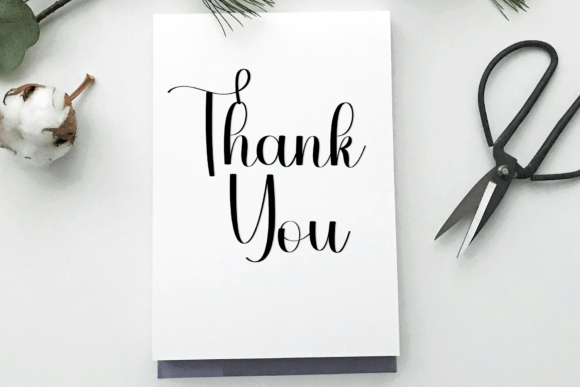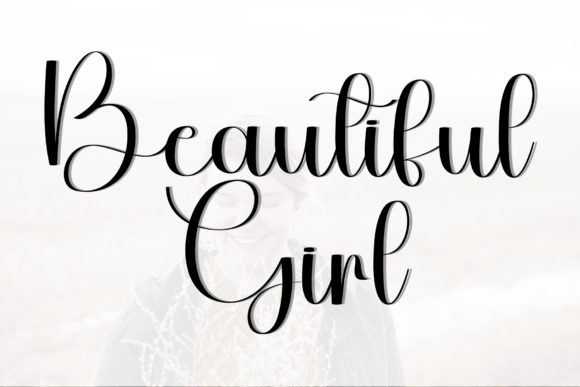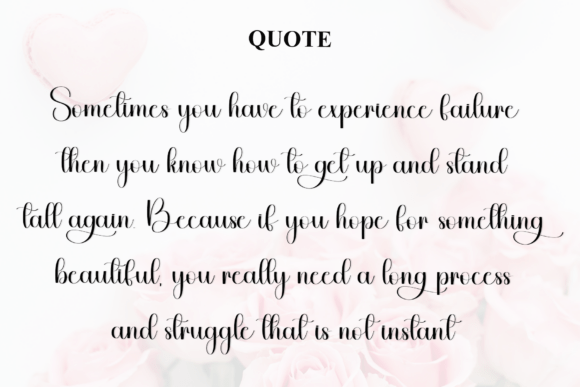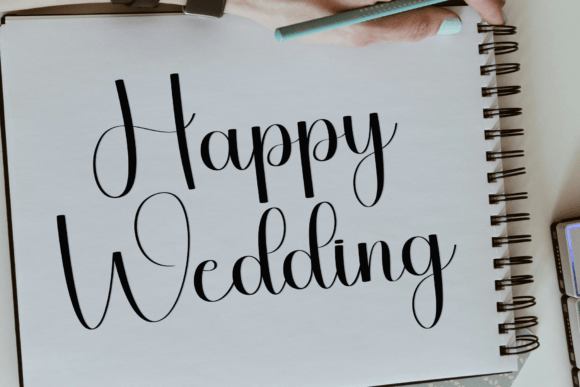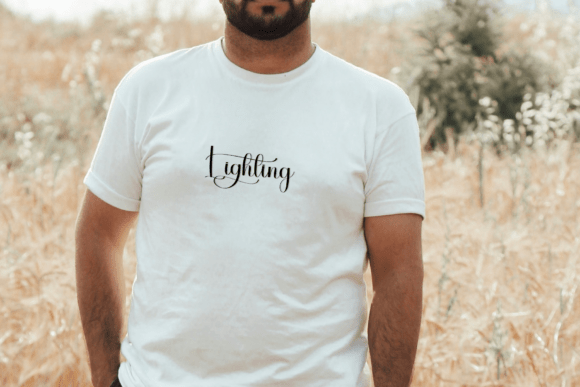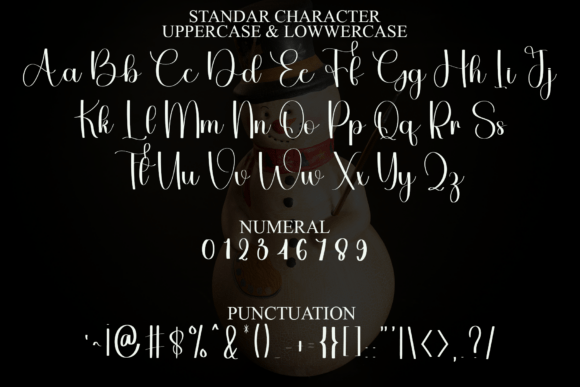
The Delight Font: A Timeless Choice for Creative Designs
Have you ever been in the middle of a design project, and suddenly, you’re stuck on finding the perfect font? I recall a recent experience where I was working on a branding project for a lifestyle brand, and I just couldn’t find a font that captured the essence of the brand. That was until I stumbled upon the Delight font. This lovely and timeless handwritten font has been a game-changer for me, and I’m excited to share my experience with you.
A Personal Review of Delight Font
As a designer, I’m always on the lookout for fonts that can elevate my designs and make them stand out. Delight font has been a delight (pun intended!) to work with, and here’s what I love about it:
- ✨ Unique and beautiful touch: Every letter in the Delight font has a distinct character that adds a personal touch to your designs.
- ✅ Timeless appeal: The font’s classic look ensures that your designs won’t go out of style anytime soon.
- 💫 Versatility: Delight font is perfect for creating eye-catching logos, branding, and quotes.
While Delight font is an excellent choice, it’s not without its quirks. Here are a few things to keep in mind:
- 🤔 Limited availability of stylistic alternates: While the font has some beautiful alternates, it’s not as extensive as some other fonts.
- ⚠️ Occasional kerning issues: I’ve noticed that the kerning can be a bit off in certain situations, but it’s not a deal-breaker.
The Story Behind Delight Font
Delight font was created by a talented type designer who’s passionate about crafting beautiful and unique fonts. The designer’s inspiration for Delight font came from classic handwritten scripts and a desire to create a font that’s both timeless and versatile. The result is a font that’s perfect for creating eye-catching logos, branding, and quotes.
| What is Delight font? | Delight font is a lovely and timeless handwritten font perfect for creating eye-catching logos, branding, and quotes. |
| Is Delight font available in different weights? | Delight font is available in a single weight. However, you can experiment with different font sizes and styles to achieve the desired effect. |
In conclusion, Delight font is a beautiful and versatile font that’s perfect for designers, crafters, and creative hobbyists. Its unique and timeless appeal makes it an excellent choice for creating eye-catching logos, branding, and quotes. With its extensive OpenType features and glyphs, Delight font is sure to elevate your designs and make them stand out.